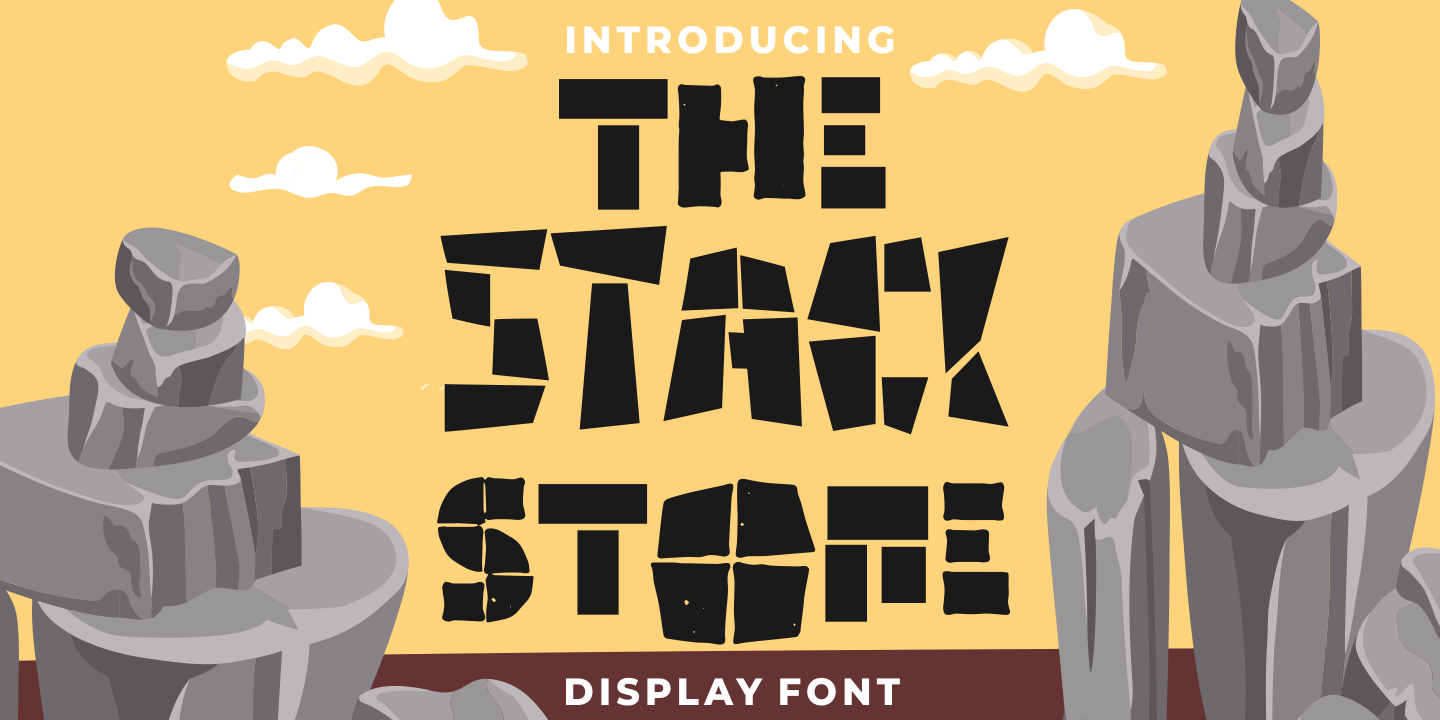
The Stack Stone Font is perfect for architectural firm branding, construction company logos, masonry business materials, luxury home builder marketing, landscape design presentations, monument engraving, heritage site signage, rustic restaurant branding, outdoor adventure gear packaging, and stone craftsmanship portfolios.
What makes The Stack Stone Font so exciting is its remarkable ability to embody the timeless strength and natural beauty of carefully laid stonework through meticulously crafted letterforms that seem hewn from ancient quarries. This font captures the enduring essence of traditional craftsmanship and architectural permanence, featuring solid, substantial characters that convey unshakeable stability and masterful construction. The robust letter shapes create an atmosphere of trust and durability, making every word feel as permanent and reliable as a well-built stone foundation.
The The Stack Stone Font family includes Light, Regular, Medium, Bold, and Heavy weights, along with textured and chiseled variations. Each style maintains the font's distinctive stone-carved character while offering flexibility for different construction and architectural applications, from delicate inscription text to bold monument headlines that stand the test of time.
This impressive typeface brings authentic craftsmanship aesthetics to modern design projects. The Stack Stone Font Free Download provides designers with an exceptional tool to create memorable brand identities that communicate quality, permanence, and traditional expertise. Whether you're developing construction company branding, designing architectural presentation materials, or creating heritage site documentation, this font delivers unparalleled visual weight and professional credibility.
The expertly designed letterforms in The Stack Stone Font feature precise geometric structures balanced with organic stone-like textures that ensure excellent readability while maintaining their solid, carved appearance. Each character has been carefully crafted to reflect the patient precision of master stonemasons, creating text that feels both timeless and contemporary. The font's substantial presence makes it ideal for applications requiring authority, stability, and enduring quality.
Construction and design professionals value how The Stack Stone Font effectively communicates reliability, heritage craftsmanship, and unwavering quality without appearing outdated or inflexible. The comprehensive character set includes architectural symbols, measurement marks, and international language support, ensuring global compatibility while maintaining its distinctive masonry-inspired identity. This makes it an invaluable asset for architectural firms, construction companies, heritage organizations, and any business seeking typography that embodies the enduring values of quality craftsmanship and structural integrity.